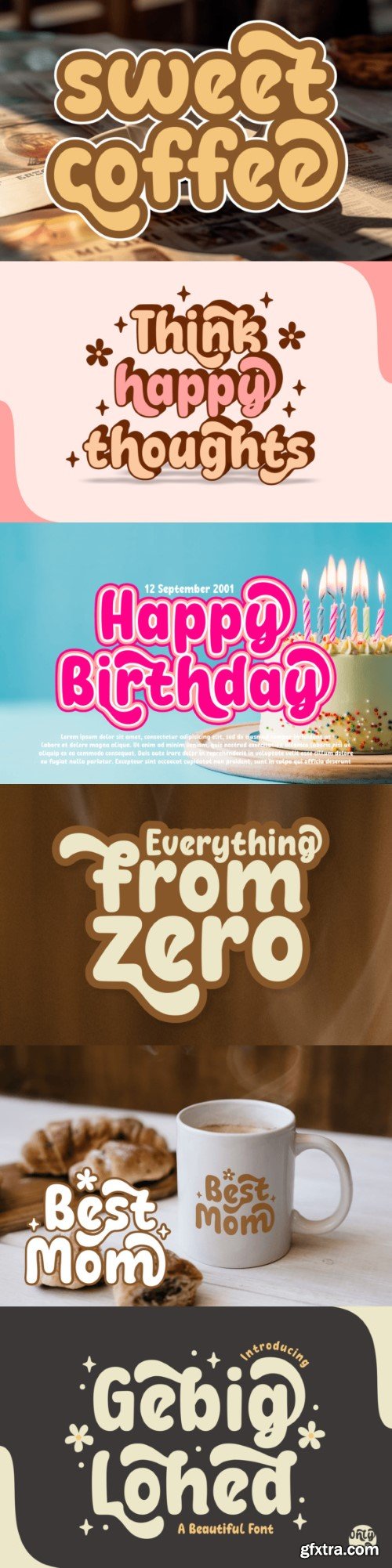
Gebig Lohed is a mesmerizing, scintillating display font that exudes cuteness and charm. As a distinctive and enchanting typeface, Gebig Lohed is a versatile choice, perfect for a range of designs including Easter themes, kids’ books, fashion labels or fresh summer tees. Operating in perfect harmony across multiple languages, this font comes with a buttery smooth texture and an aesthetically appealing, clean finish. Its bold, chunky style makes it ideal for headlines on posters, magazine covers, and product packaging designs, while its sweet, fun-filled attributes make it a great fit for greeting cards and sticker collections. For anyone aiming at creating a unique, luxury brand with a trendy, girl-next-door vibe, Gebig Lohed offers an irresistible allure. This font is a sweet symphony of elegance, fun, and style that can illuminate your designs, whether they are for new, upbeat fashion startups or love-filled Mother’s day cards. Gebig Lohed is not just any font, it’s a font with a personality that can truly make your designs stand out from the crowd. Be it branding, t-shirts, or quotes – with Gebig Lohed, your creativity can reach new heights. Give your designs a touch of Gebig Lohed – a unique, lovable font that is as sweet as candy and as fun as a bunny hop.